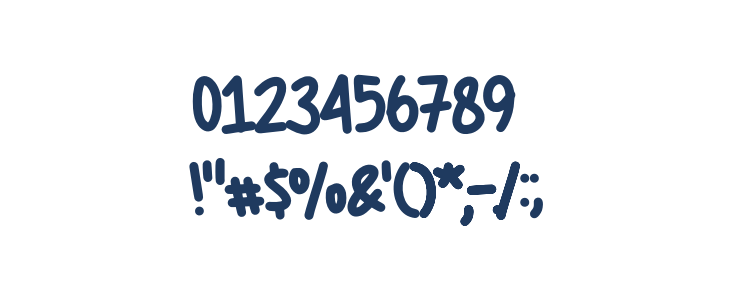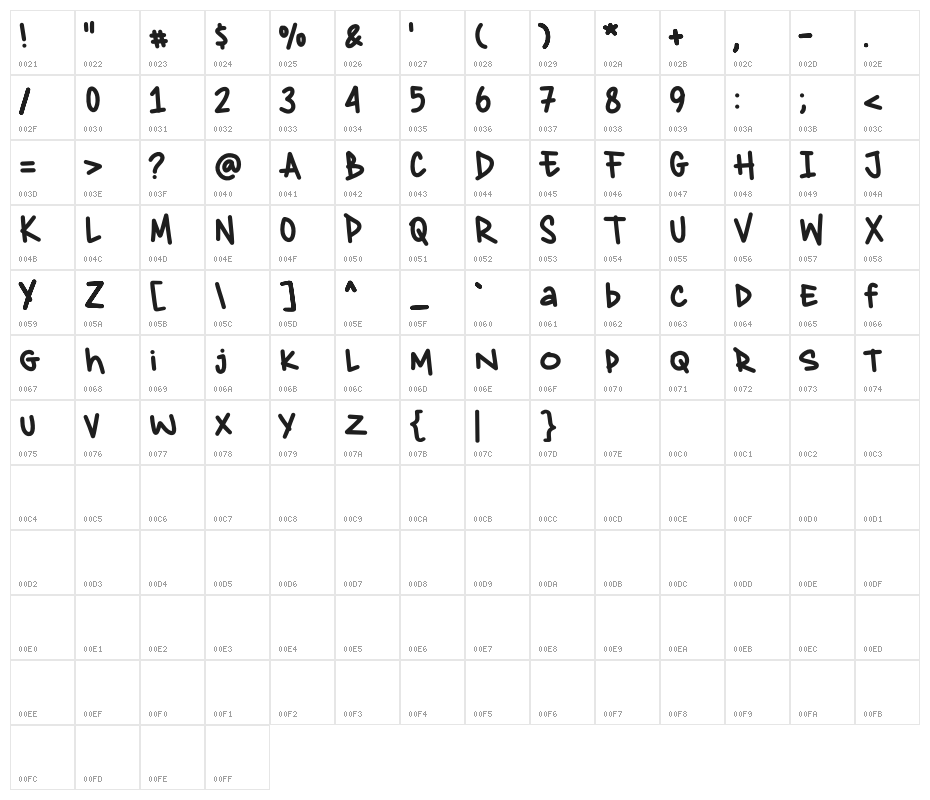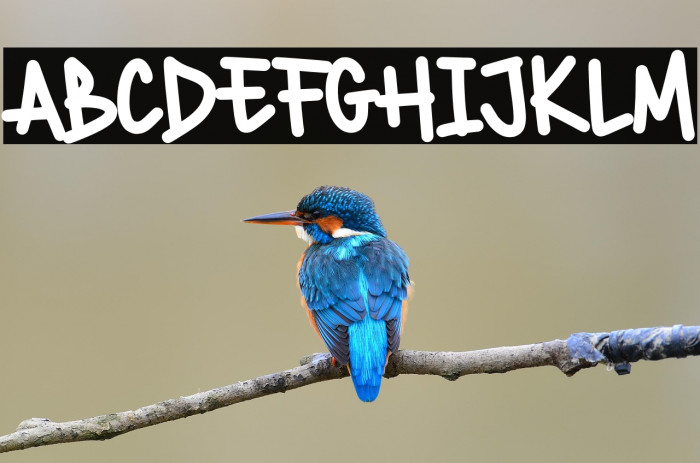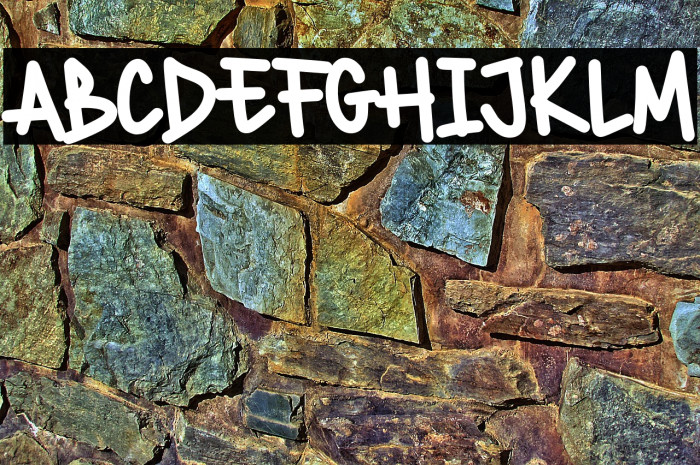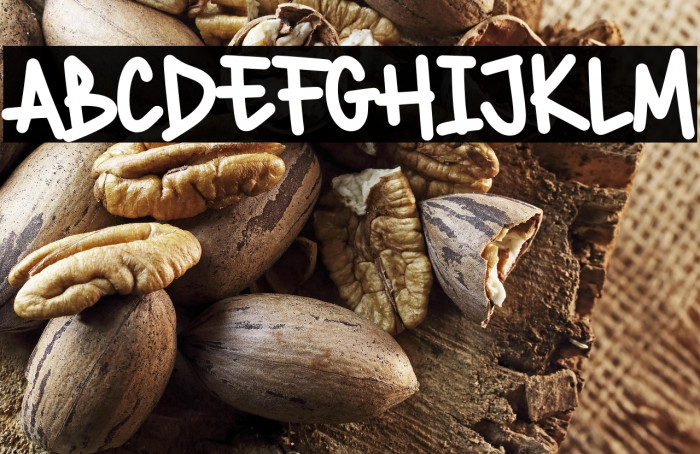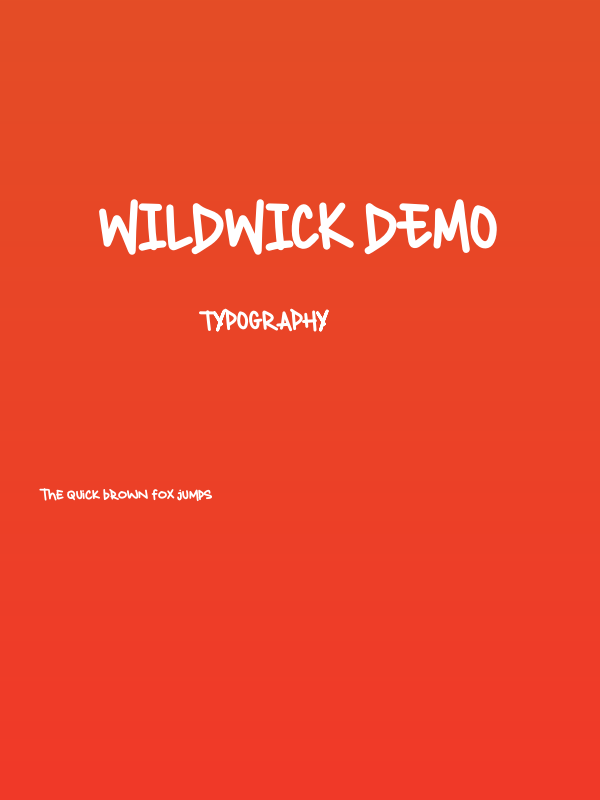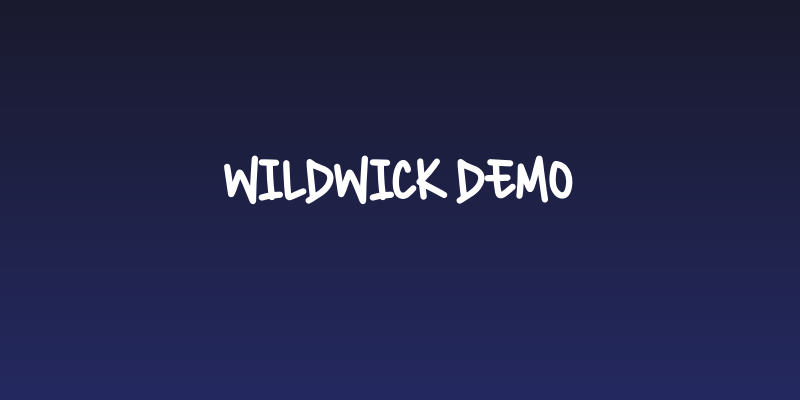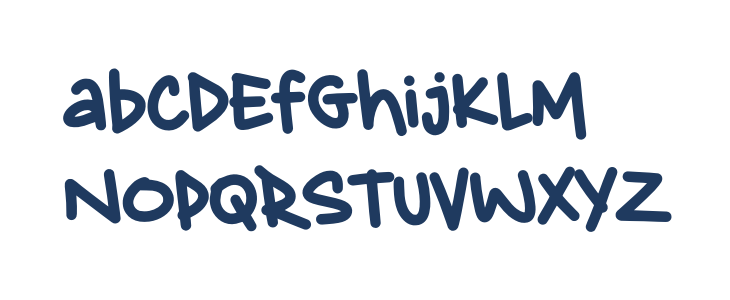
Wildwick Demo Font
Wildwick Demo Description
This font features a playful and bold handwritten style, characterized by its thick strokes and casual appearance. The letters are slightly slanted, giving it a dynamic and energetic feel. The uppercase and lowercase letters maintain a consistent style, with rounded edges and a uniform thickness that adds to its approachable and friendly look. The numbers and special characters follow the same design principles, ensuring a cohesive appearance across all glyphs. This font is ideal for projects that require a personal touch or a fun, informal vibe.
| Use Case | Logos, Headlines, Informal Text |
| Proposed Projects | Perfect for children's books, playful branding, casual invitations, and social media graphics. |